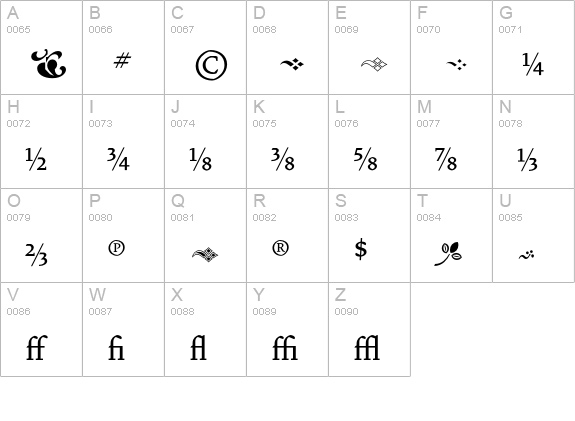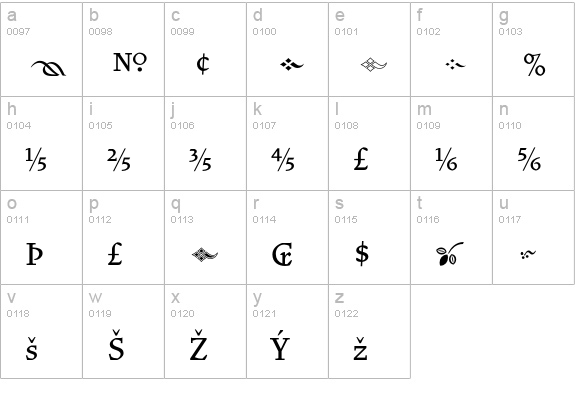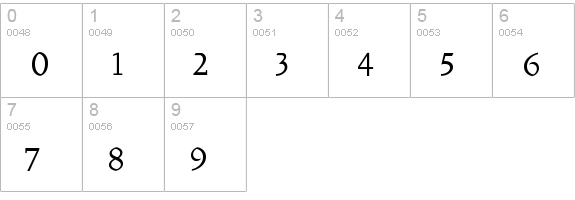
VendettaMediumFractions Font Details
VendettaMediumFractions font is an exquisite and versatile typeface that effortlessly combines elegance with a touch of modernity. With its clean lines and balanced proportions, this font is perfect for a wide range of design projects, from editorial layouts to branding materials. Designed with utmost precision, VendettaMediumFractions font offers a unique combination of sophistication and clarity. The carefully crafted letterforms exude a sense of professionalism and refinement, making it suitable for both formal and informal applications. One of the standout features of VendettaMediumFractions font is its incredible versatility. It seamlessly adapts to different contexts, effortlessly complementing any design concept or style. Whether you're designing a logo, a website, or a magazine spread, this font has the ability to elevate your project to new heights. But what truly sets VendettaMediumFractions font apart is that it is freely available to download at FontsMarket.com. Yes, you read that right - this stunning font can be yours without any cost. FontsMarket.com is a reputable platform that offers a vast collection of high-quality fonts, and VendettaMediumFractions font is just one of the many gems you can find there. With its impeccable craftsmanship and its availability as a free download, VendettaMediumFractions font is a must-have for designers, creatives, and anyone in search of a versatile and captivating typeface. So why wait? Head over to FontsMarket.com today and enhance your design projects with this remarkable font.